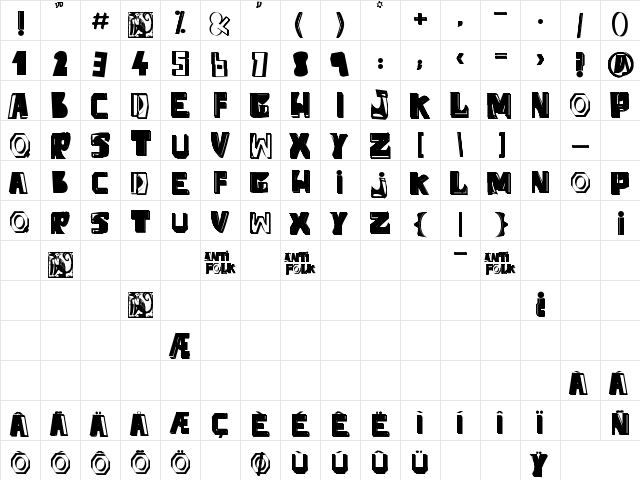
Anti-Folk Regular
Design Context for Anti-Folk Typeface
Anti-Folk is a composed and adaptable typeface that performs quietly and consistently across a wide range of design contexts.